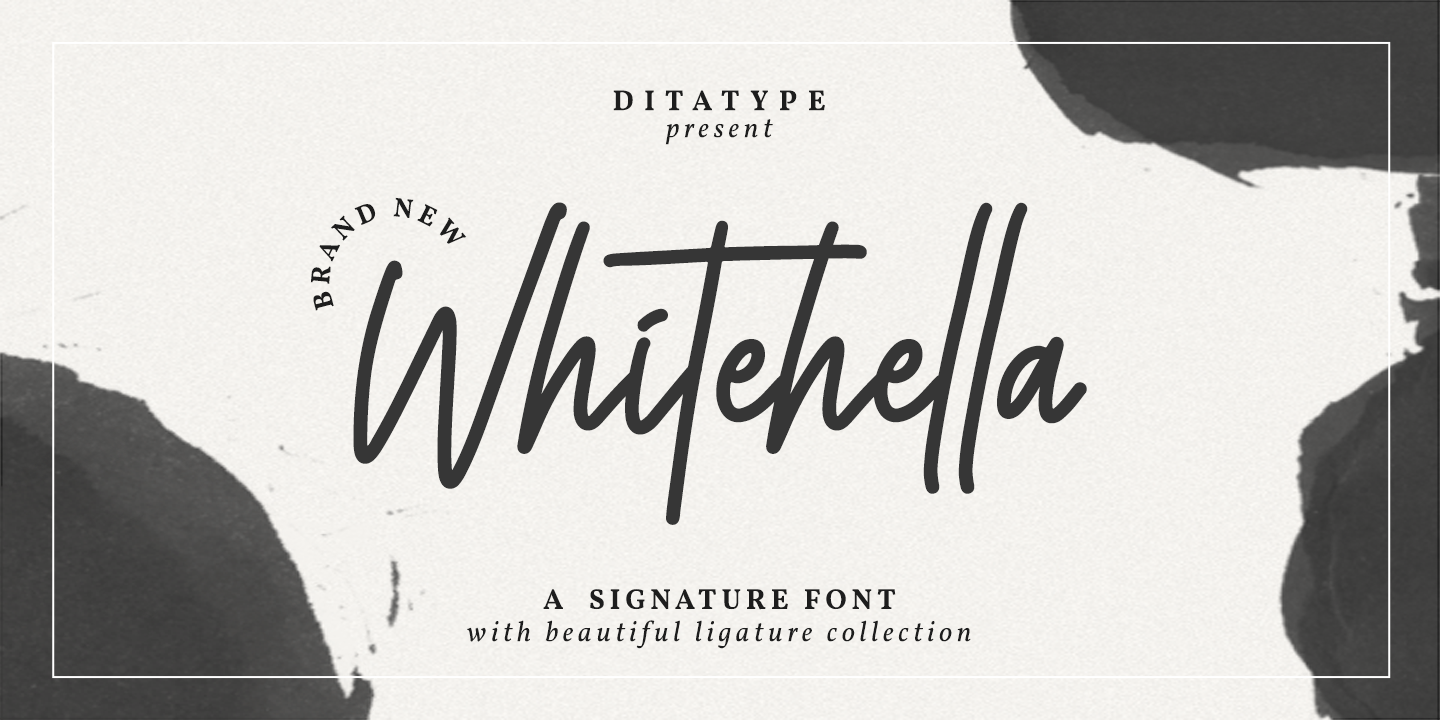
Whitehella Font is ideal for luxury spa branding, high-end beauty salons, elegant wedding invitations, premium skincare packaging, sophisticated fashion magazines, upscale boutique signage, minimalist wellness centers, refined jewelry marketing, exclusive resort materials, and pure lifestyle brand communications. This graceful typeface excels in applications where pristine elegance and serene sophistication need to be communicated with pure refinement and ethereal beauty that embodies tranquil luxury experiences.
What makes Whitehella Font exciting is its extraordinary ability to convey pure elegance and serene beauty through its delicately crafted letterforms that seem to float with angelic grace and pristine sophistication. The font embodies the essence of heavenly purity and ethereal elegance with its refined construction and luminous character that suggests divine inspiration and celestial beauty. Its carefully balanced proportions and serene personality create an atmosphere of peaceful luxury that resonates with audiences seeking pure, untainted experiences and transcendent beauty that elevates the ordinary to the extraordinary.
The Whitehella Font family typically includes Light, Regular, and Medium weights, each maintaining the signature ethereal characteristics and pristine elegance. Some versions offer delicate Italic variants with enhanced flowing grace and decorative elements that amplify the angelic aesthetic. The family may also include ultra-light weights for ethereal applications and special ornamental characters that enhance the heavenly appeal for luxury and wellness branding requiring pure sophistication.
Whether you're creating premium beauty brands, luxurious wellness experiences, or ethereal lifestyle materials, Whitehella Font Free Download delivers the perfect celestial refinement your pure luxury projects deserve. Its angelic character and pristine styling make it an invaluable choice for luxury spas, high-end beauty brands, and premium lifestyle businesses working in wellness, beauty, and luxury sectors where authentic purity and transcendent elegance are essential for attracting discerning clientele who seek heavenly experiences and divine beauty.